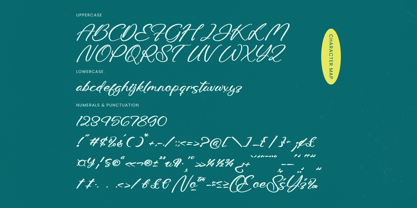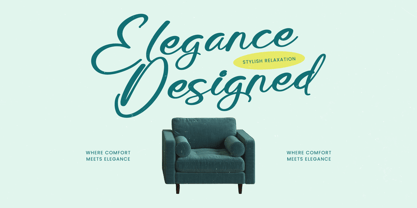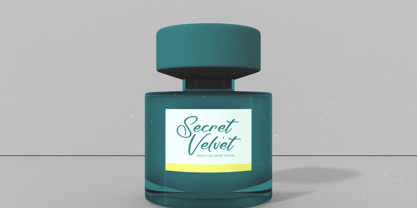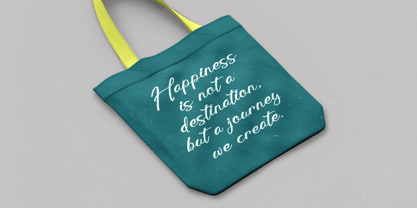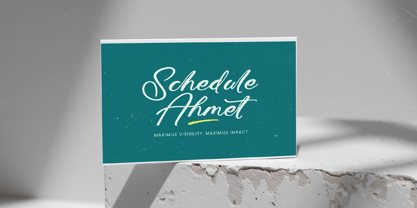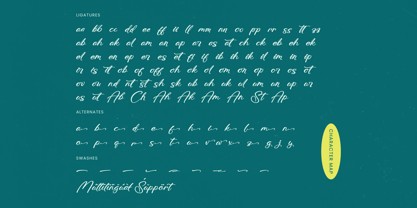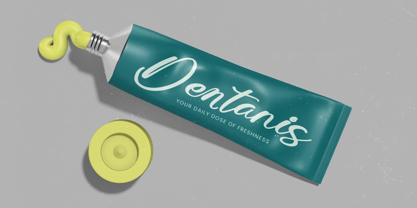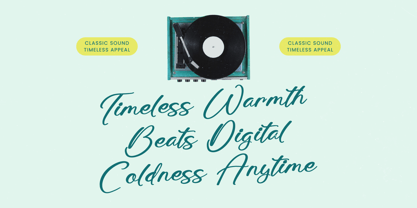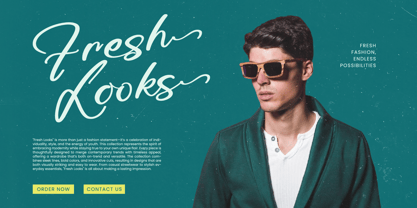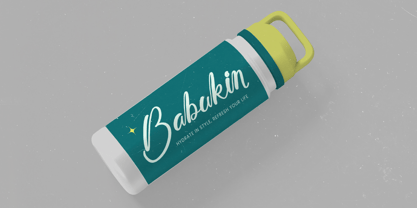
Amlerish Stagnate
by Stylishtype Studio
The Amlerish Stagnate Font Family was designed by Heru Utama Putra and published by Stylishtype Studio. Amlerish Stagnate contains 2 styles and family package options. More about this family
Amlerish Stagnate - Bold Handwritten Font , from Stylishtype, Suitable for any projects such as: logos, branding projects, homeware designs, product packaging, mugs, quotes, posters, shopping bags, t-shirts, book covers, name card, invitation cards, greeting cards, label, photography, watermark, special events, and all your other luxury and beautiful projects that need a Luxury Script taste.